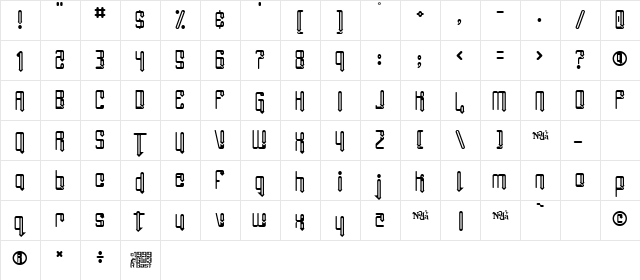
Angie Groovin Regular Font Preview
Angie Groovin Regular
Angie Groovin Regular Font Details
Design Context for Angie Groovin Typeface
Angie Groovin is a composed and adaptable typeface that performs quietly and consistently across a wide range of design contexts.